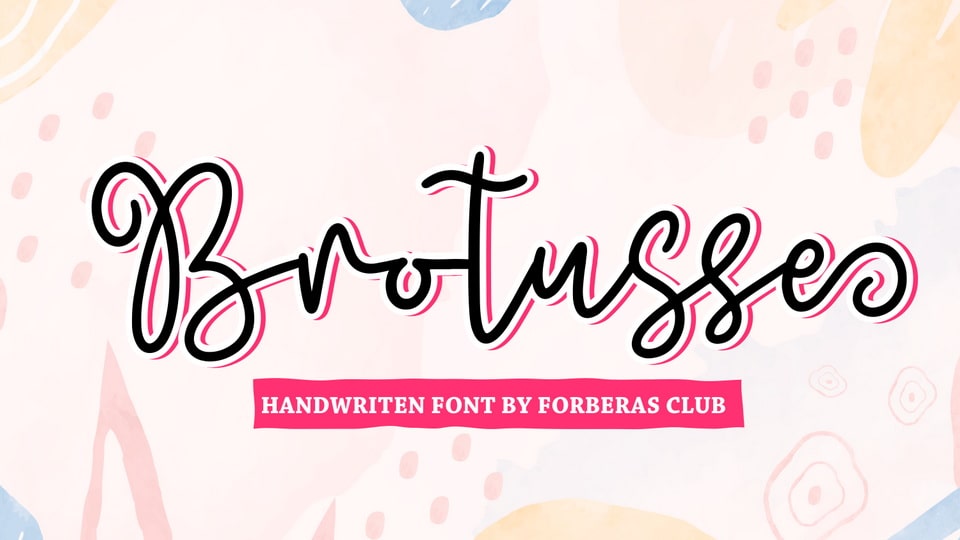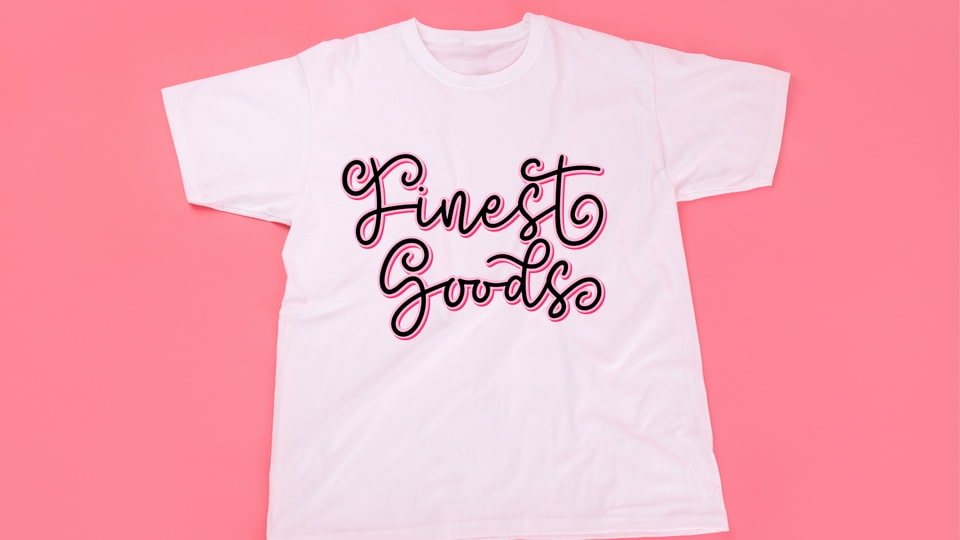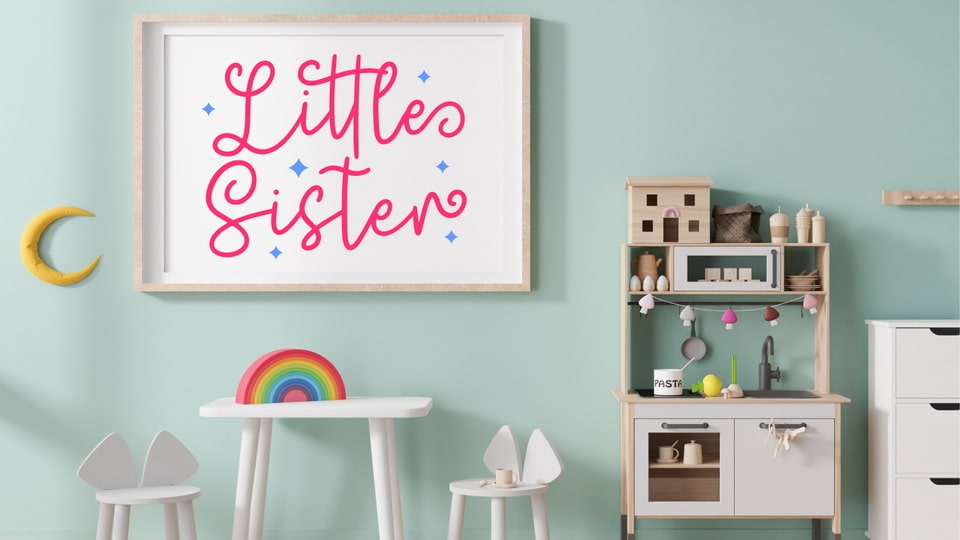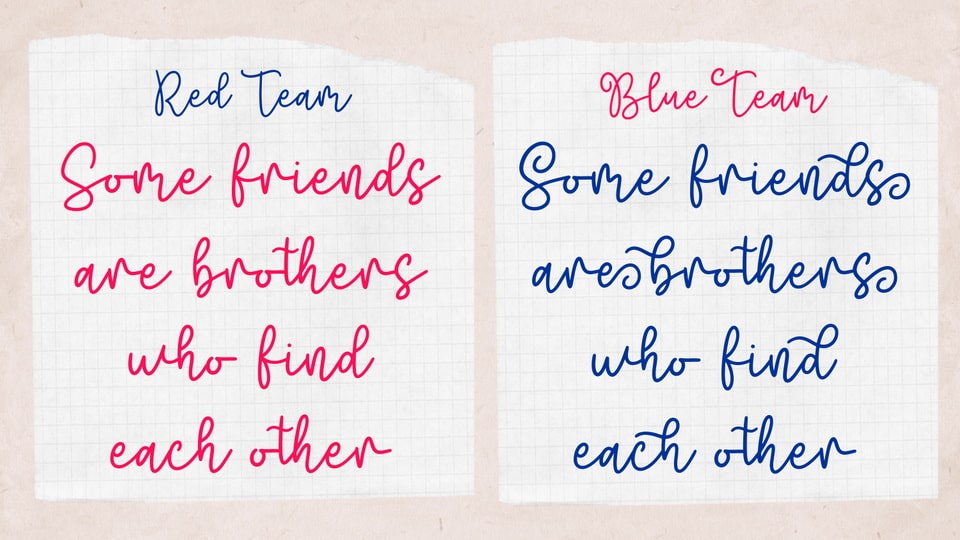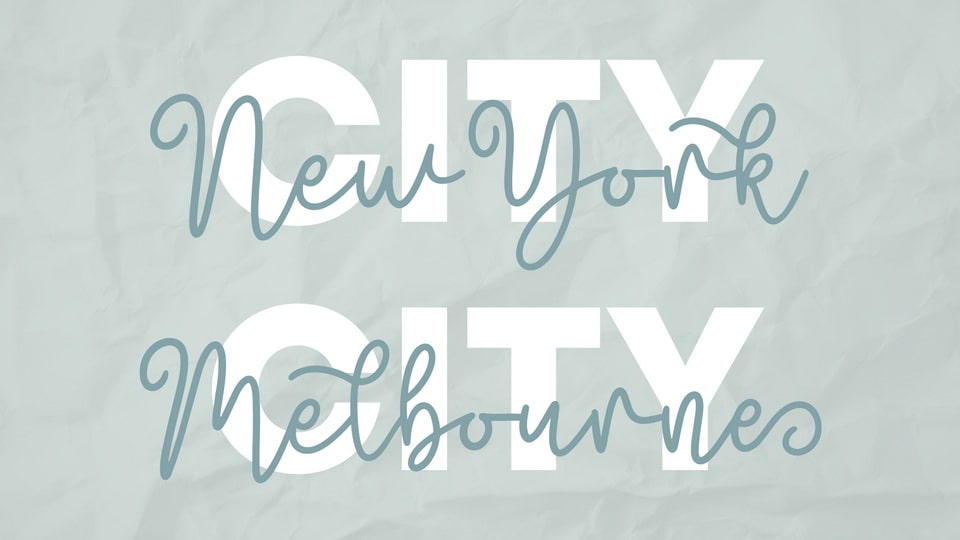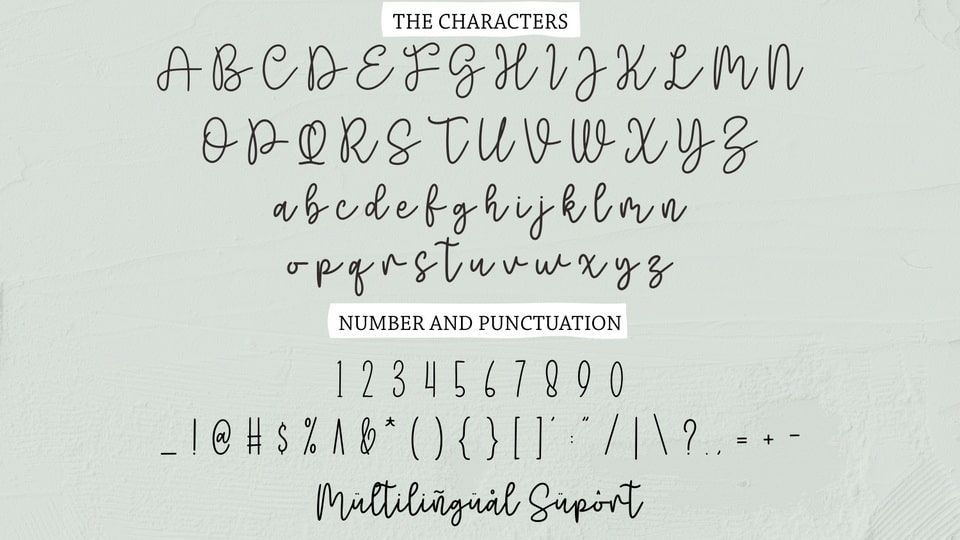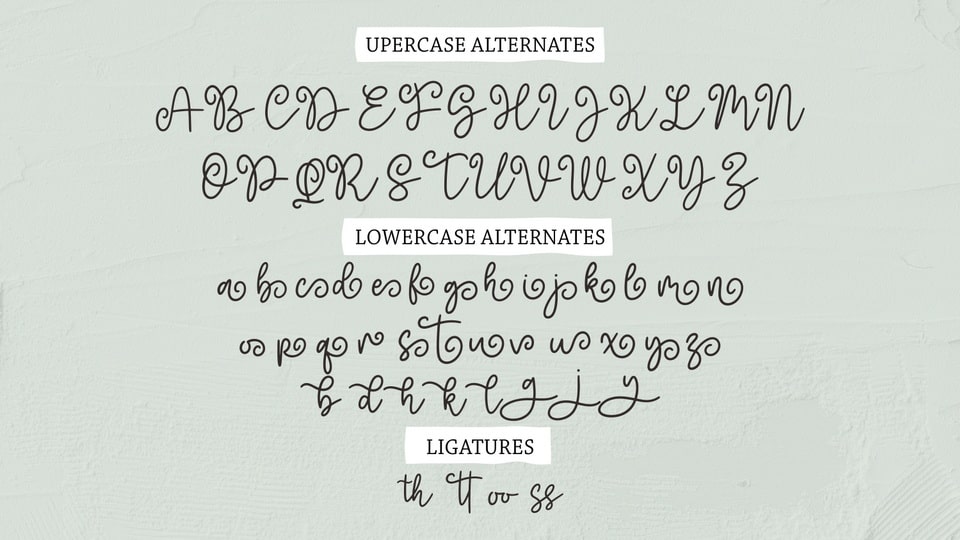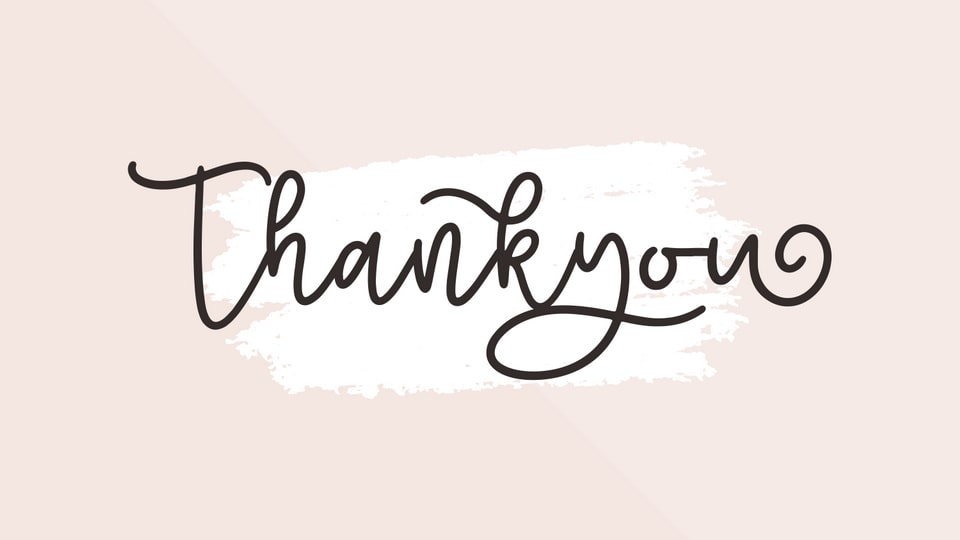
Brotusse is a simple script font inspired by casual handwriting. It is especially designed for natural, organic designs with personal touch.
Brotusse font is perfect for creating modern and chic designs such as logos, packaging, editorials and more.